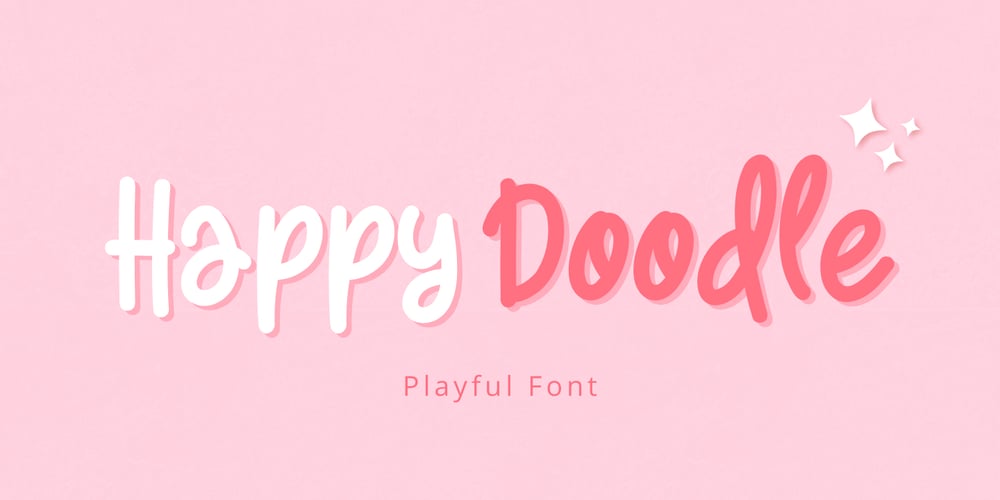
Happy Doodle
Happy Doodle font
Happy Doodle Font Family was designed by Yusup Saputra and published by DYSA Studio. Happy Doodle contains 1 styles and family package options. Introducing “Happy Doodle Font,” the ultimate font for all your fun and playful design needs!This delightful typeface is perfect for adding a touch of whimsy and cheerfulness to any project.